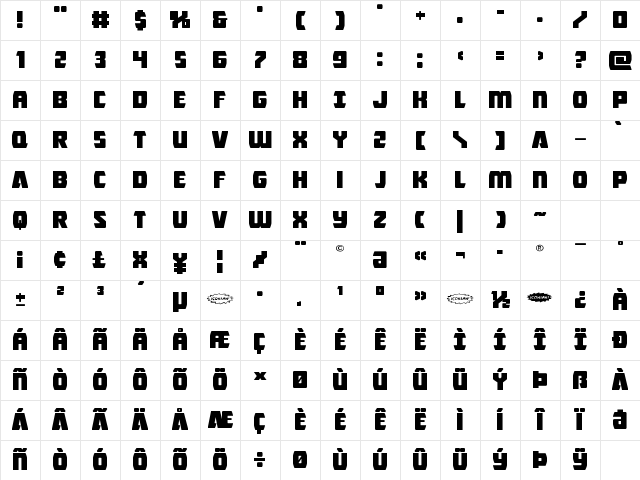
Complete Intergalactic Expanded glyph index. Displaying only characters natively supported by Intergalactic Expanded font.
Intergalactic Expanded is a composed and adaptable typeface that performs quietly and consistently across a wide range of design contexts.